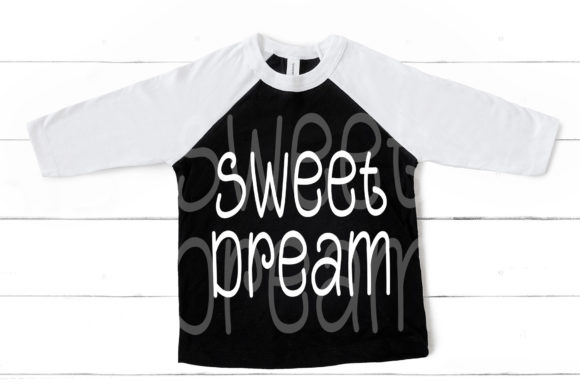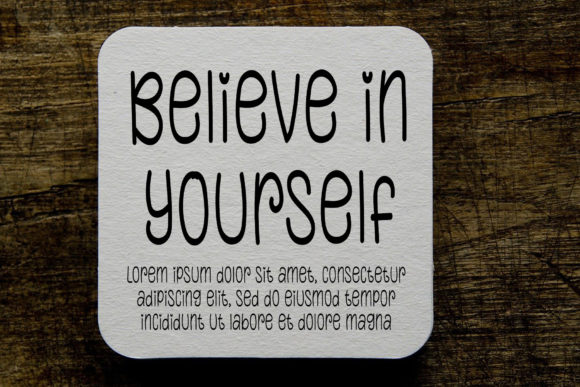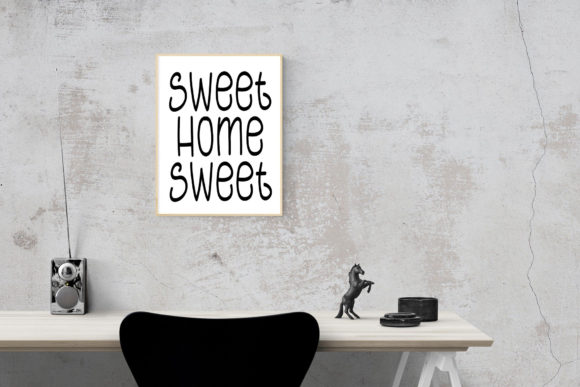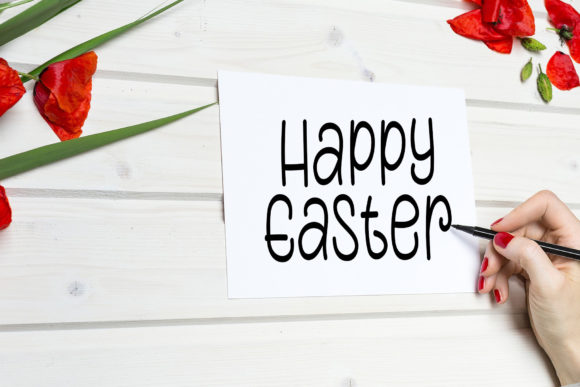
Minimalist Font
About Minimalist Font
Introducing “Minimalist,” a beautiful handwritten font that adds a touch of elegance to your designs. Perfect for wedding invitations, greeting cards, billboards, logos, business cards, and any project requiring a handwritten touch, this font is crafted to enhance the aesthetic appeal of your creations.
With its beautiful and minimalist design, “Minimalist” brings a sense of simplicity and sophistication to your projects. The handwritten touch adds a personal and charming element, making it suitable for a variety of design applications where a graceful and refined look is desired.
Imagine “Minimalist” as the perfect choice for your wedding invitations, greeting cards, and business materials. Its versatility ensures it can adapt to different design contexts, bringing a touch of elegance and a handwritten feel to each project.
In summary, “Minimalist” is more than just a font; it’s a beautiful handwritten script designed to elevate the visual appeal of your creations. Let it be the perfect addition to your design toolkit, adding a touch of elegance and charm to your wedding invitations, greeting cards, and beyond.